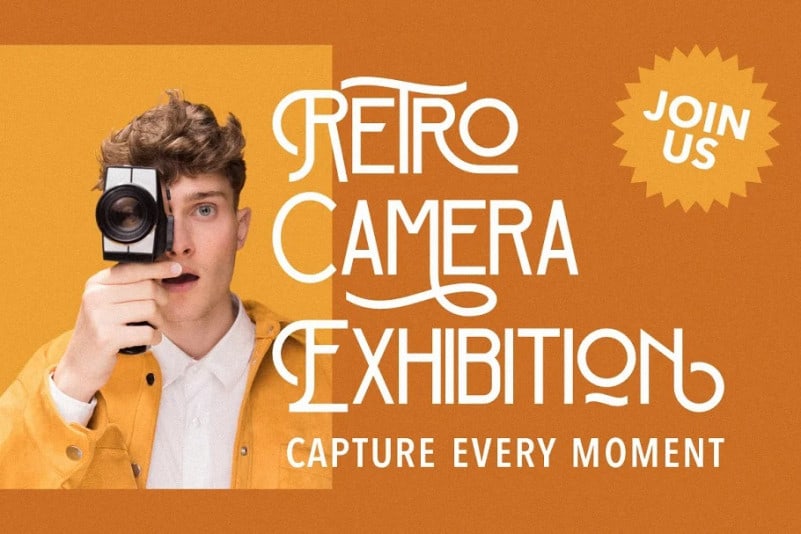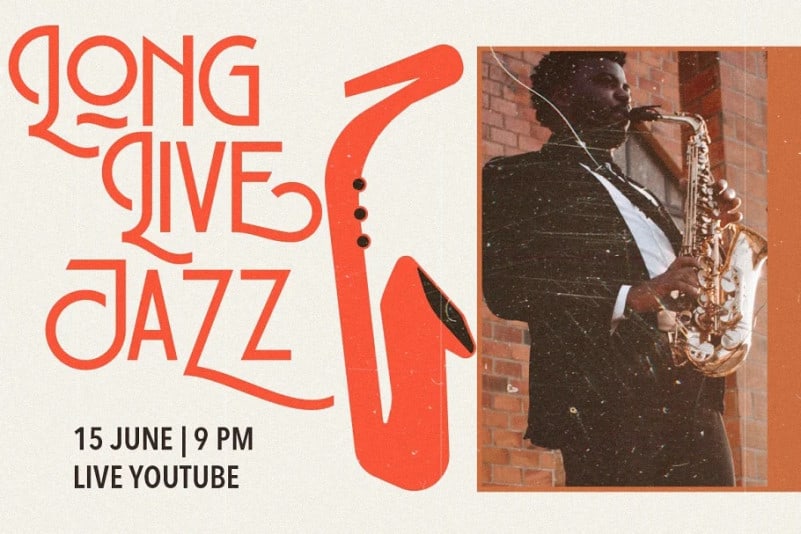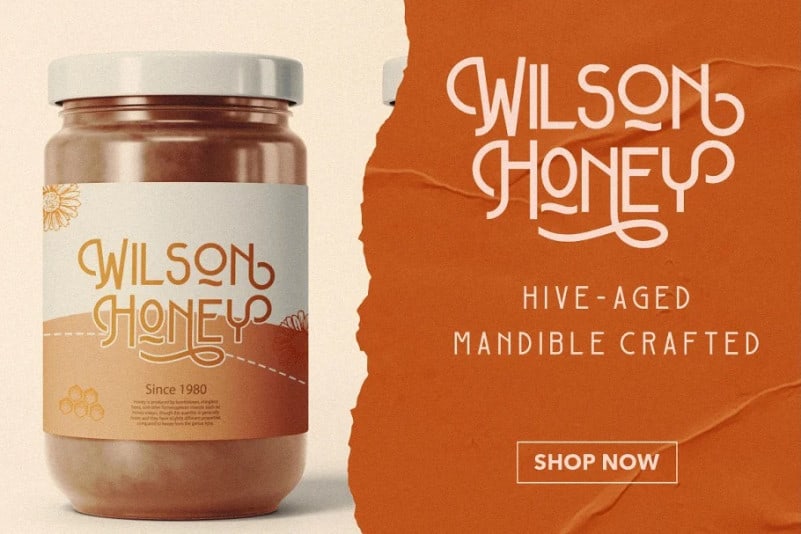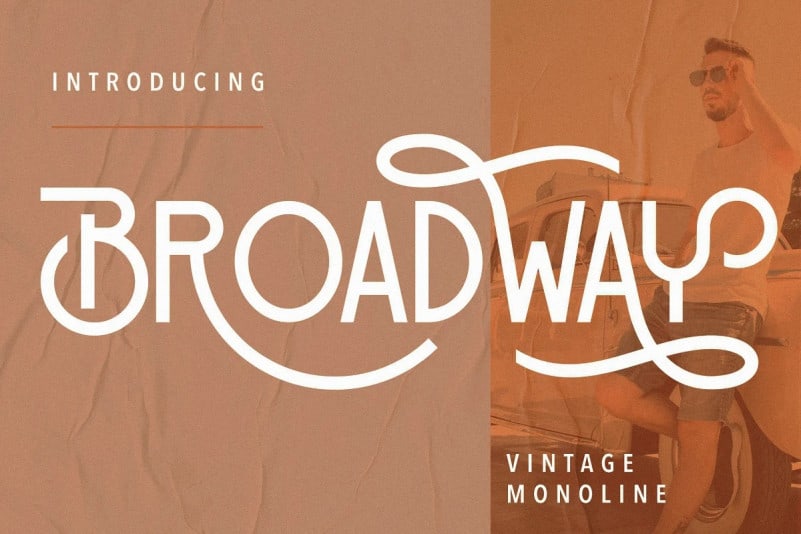
Broadway Display Font is a vintage sans serif font which was developed with upper case and elongated font styles.
Broadway is perfect for branding projects, logo, wedding designs, social media posts, advertisements, product packaging, product designs, label, photography, watermark, invitation, stationery and any projects that need handwriting taste.